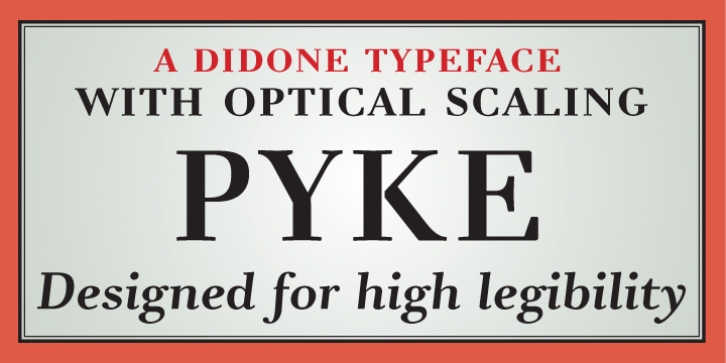
The typeface Pyke, named after the legibility researcher Richard Lionel Pyke, is a serif typeface inspired by the work of Giambattista Bodoni.
An early version of the typeface was subjected to experimental legibility investigations of distance and time threshold methods*. Participants were exposed to different variations of the most frequently misread lowercase letters. The findings, which were implemented in the final designs, demonstrated that in a short exposure the italic style ‘l’ with a tail has a higher visibility than the ‘l’ with serifs at the bottom, that the Italic style descending ‘f’ is more visible at distance than the Roman style ‘f’, that a closed aperture of the ‘e’ lowers visibility in a short exposure, and that the same goes for the closed aperture of the ‘c’ at distance.
The typeface family Pyke is size specific, including versions for Micro, Text, and Display. PykeMicro is developed for small point sizes of 8 or less, PykeText is for running text at regular text sizes of 9-14 points, and PykeDisplay is designed for the larger print sizes.
PykeText and Micro are both inspired by Giambattista Bodoni’s earlier work having elements of the Transitional typeface tradition. To improve readability and minimize the vertical feeling, the ascending lowercase stems of PykeText and Micro are bent slightly forward, the Didone style high contrast and radical transition between horizontal and vertical counters have been toned down, and the lowercase letters ‘e’ and ‘c’ have a diagonal axis. Historical traditions dictate the Didone style narrow characters to be extra narrow. Nonetheless, to enhance the horizontal flow this tradition was disregarded in the text versions of Pyke; instead, emphasis was given to the forward movement by broadening and opening the loops in both characters ‘j’ and ‘f’. Another disregarded Didone style feature in PykeText and Micro is the heavy teardrops on the letters ‘f’, ‘j’, ‘a’, ‘c’ and ‘r’, which seem to enhance the vertical movement in the letters.
Compared to the two text versions of Pyke, the display version has a smaller x-height, larger contrast and narrower letters. Since headlines and titles often appear in large sizes at a close reading distance, readability may in these situations be less significant than in versions for running text. Furthermore, headings rarely consist of longer paragraphs, and are often perceived in few fixations. A horizontal emphasis is consequently not as vital, and so the Didone style tradition, such as: narrow letters ‘j’, ‘f’ and ‘t’, the heavy teardrops, and the high stroke contrast, can be applied. By emphasising these somewhat legibility troubling Didone features in the larger sizes alone, the typeface PykeDisplay will in combination with PykeText and PykeMicro, add an element of elegance and sophistication to the layout without causing the reader strain.
* Beier, S. & Larson, K. (2010) ‘Design Improvements for Frequently Misrecognized Letters’, Information Design Journal, 18(2), 118-137